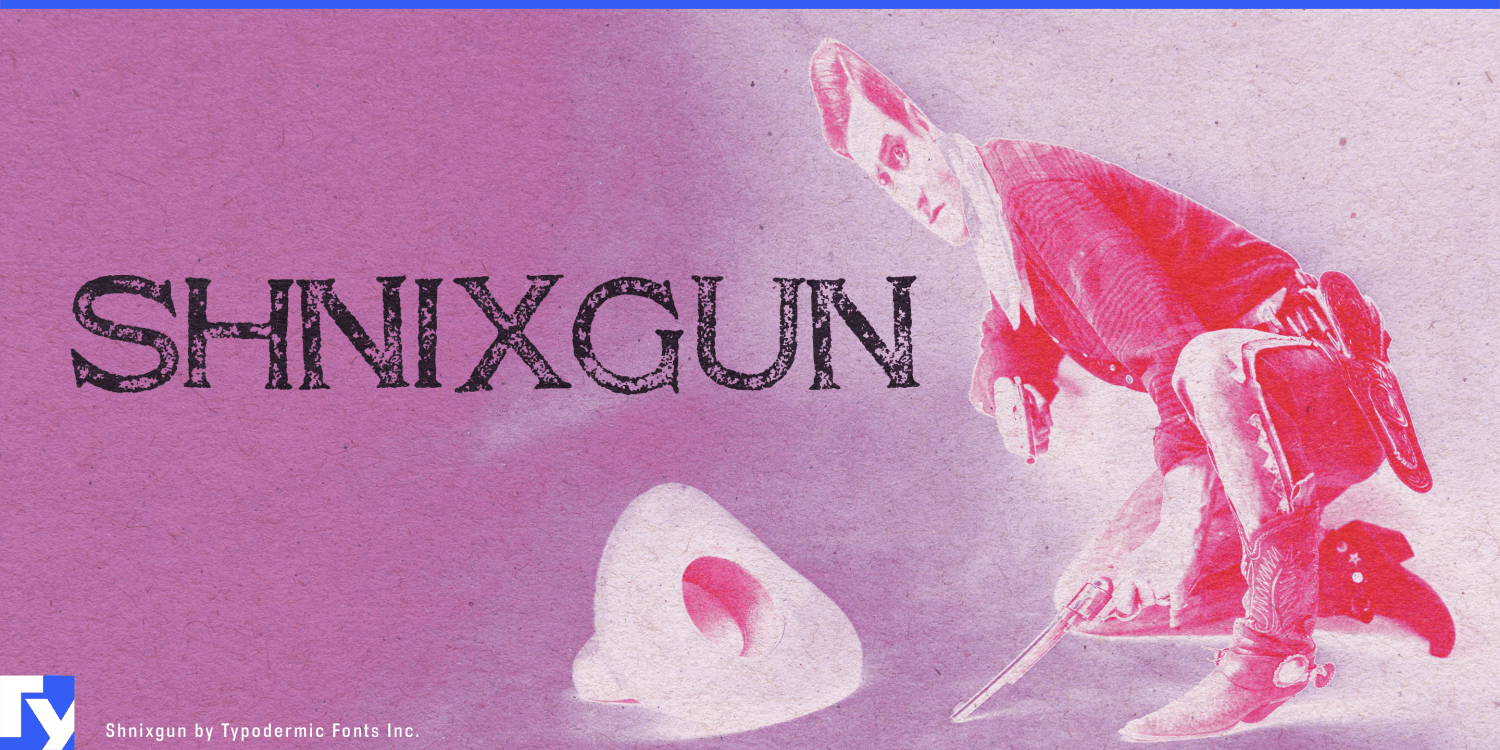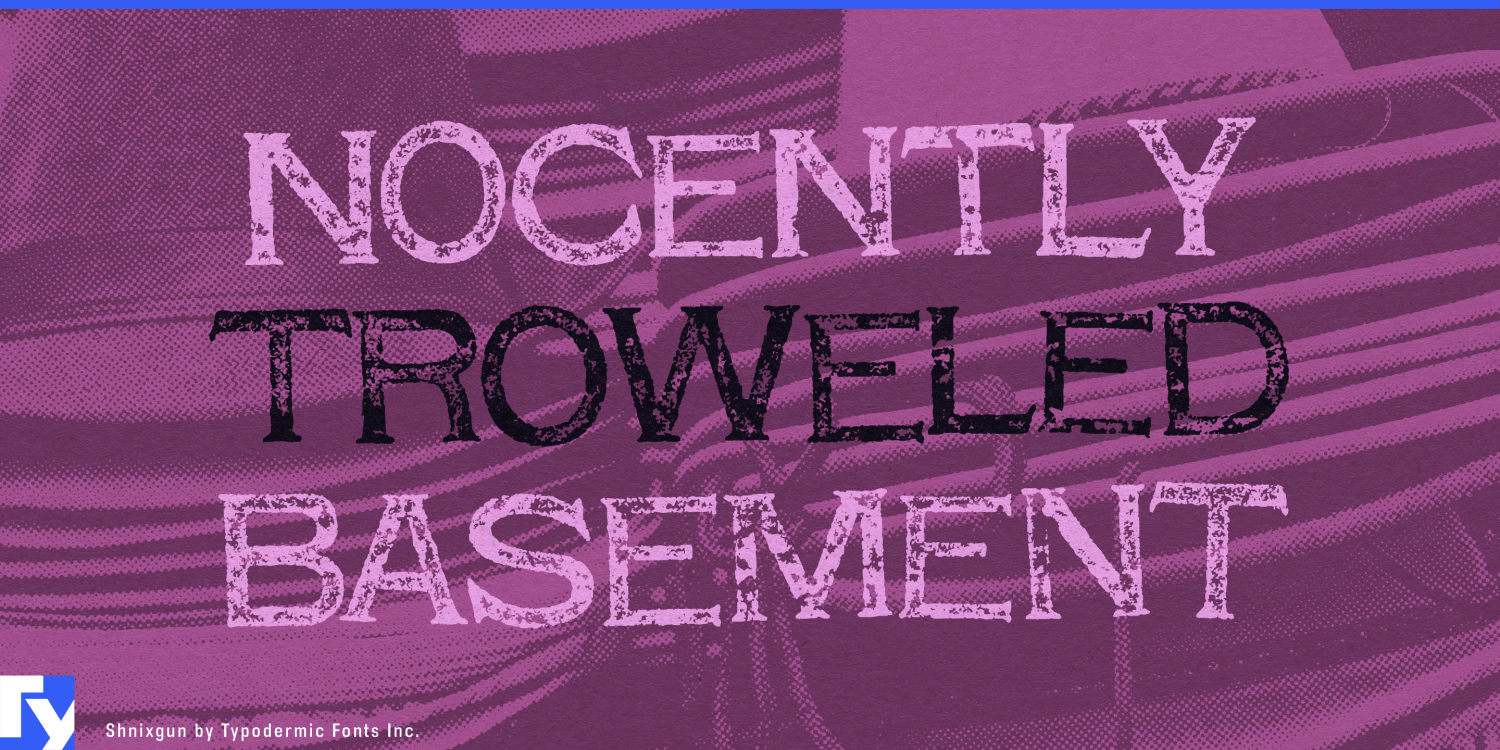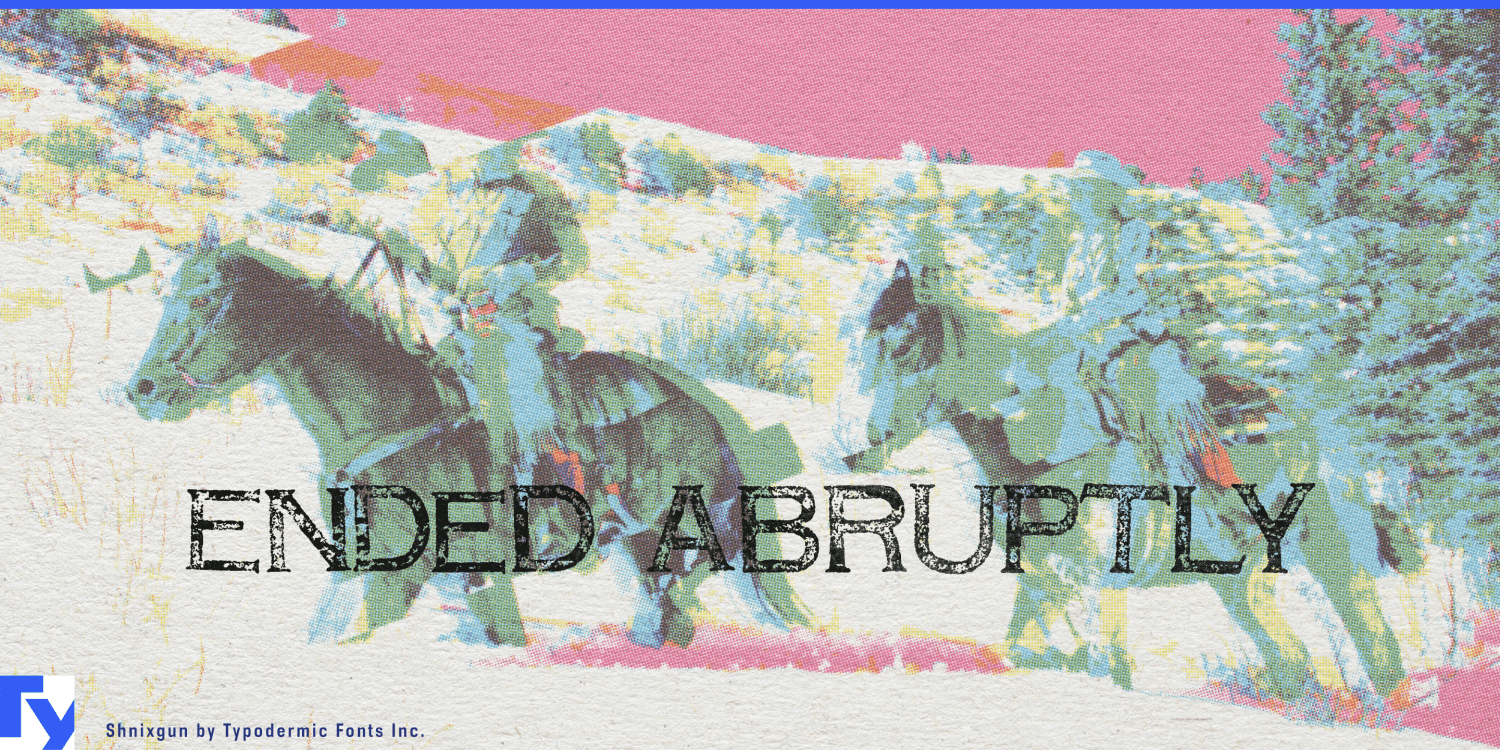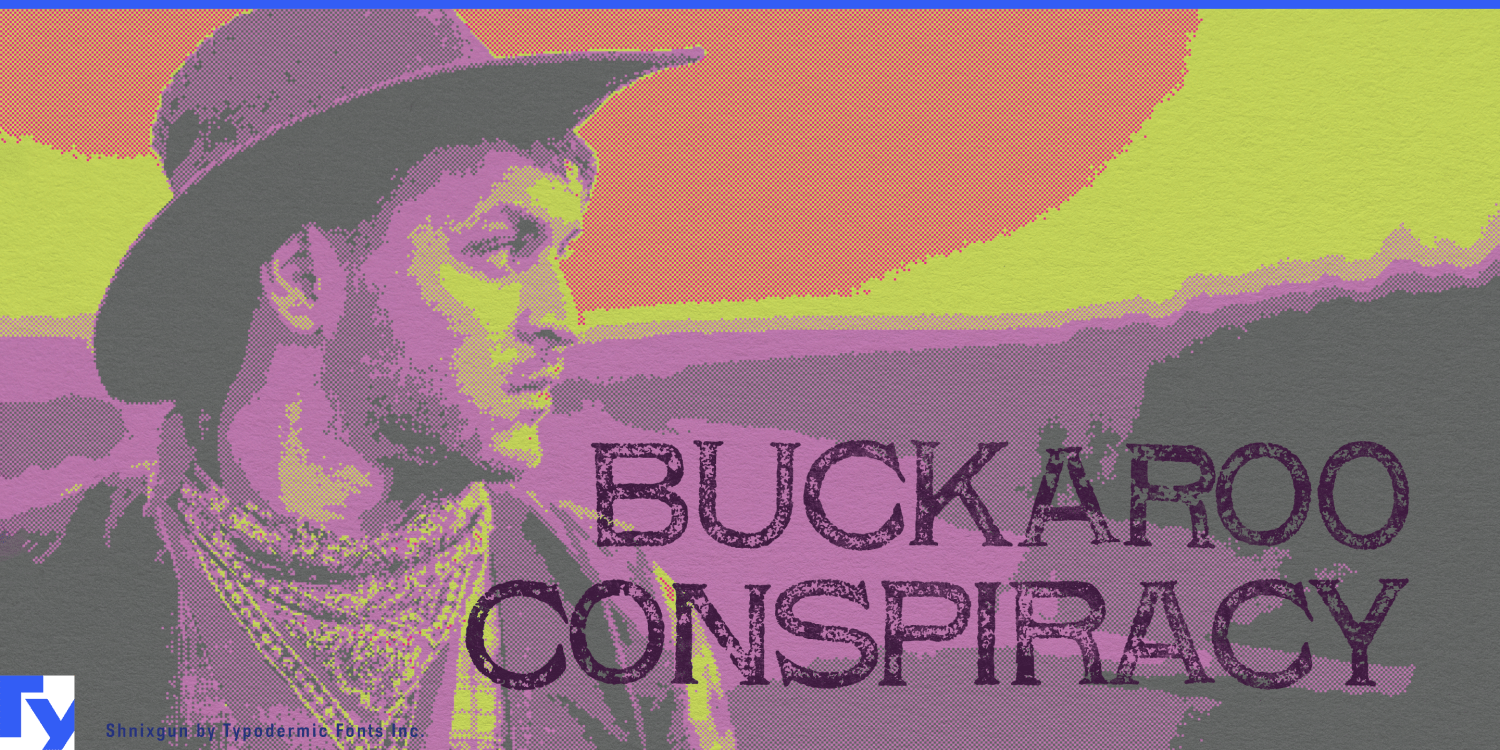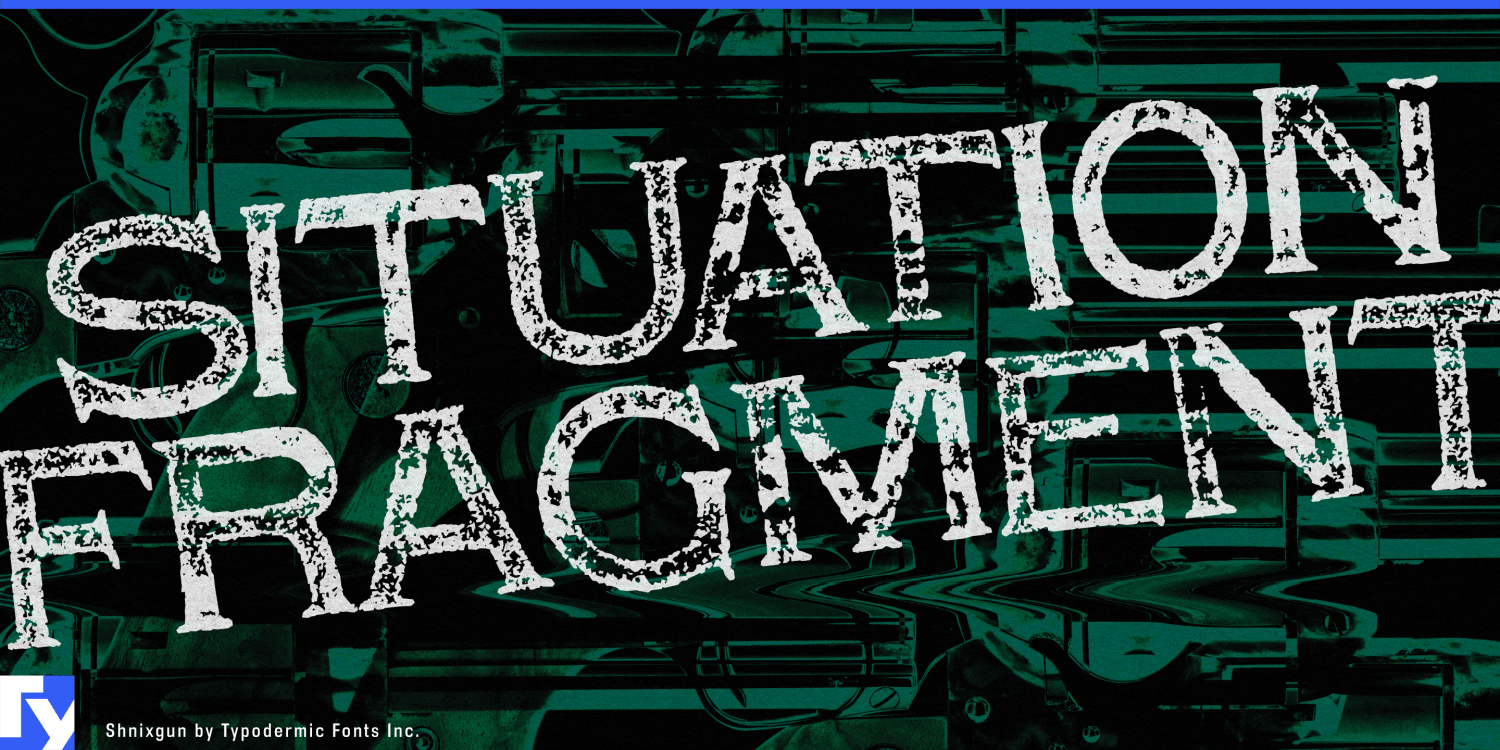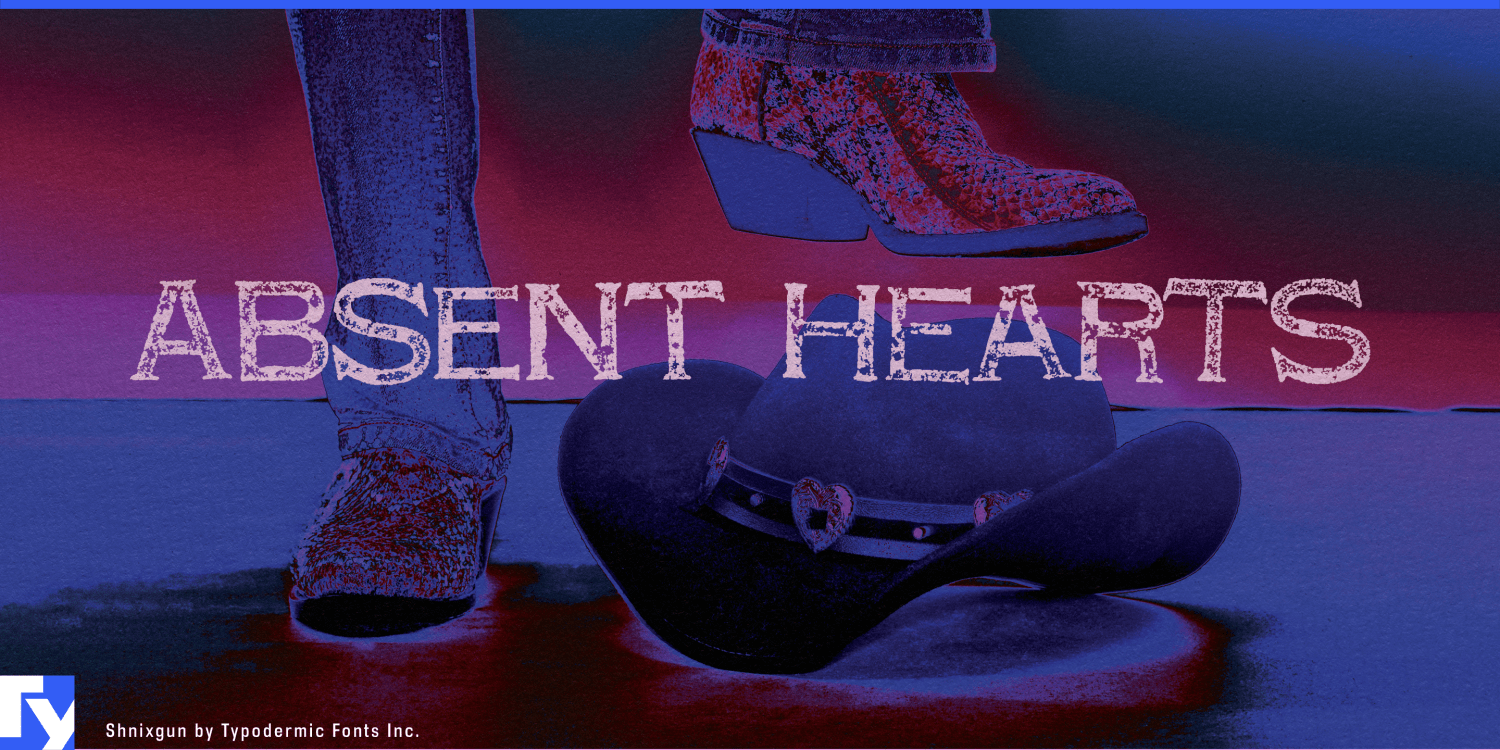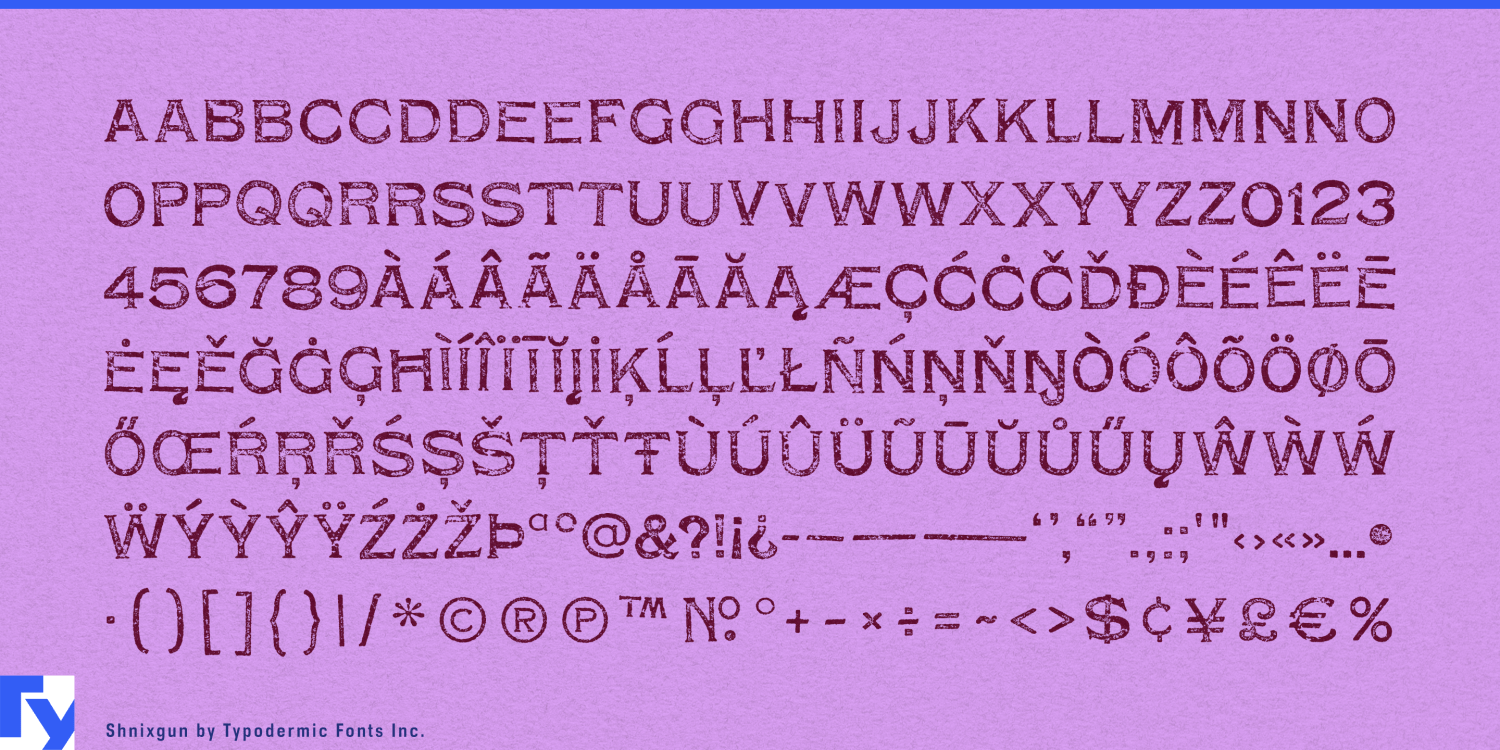
Shnixgun
Buy NowShnixgun is built to look printed rather than digitally distressed. Its condensed all-caps forms carry uneven ink, broken edges, and inconsistent density that suggest imperfect reproduction rather than damage applied to clean type. Character substitutions also help repeated combinations avoid an obviously mechanical pattern.
That makes Shnixgun especially useful when a contemporary design system needs a convincing historical layer. Established manufacturers, engineering companies, rail operators, building-product firms, electrical suppliers, and other long-lived industrial businesses can use it for centennials, anniversary campaigns, heritage collections, archive exhibitions, reconstructed catalogue graphics, factory-history displays, and limited product reissues.
Restoration and restomod businesses can use the same vocabulary for classic vehicle projects, vintage trucks, motorcycles, reproduction parts, and custom workshops. Shnixgun suits build-series names, specification cards, vehicle-display plaques, parts packaging, workshop graphics, and event material without falling into diner-sign nostalgia.
Industrial museums, railway collections, maritime museums, mining heritage sites, and exhibitions about manufacturing or labour history can use Shnixgun for exhibition titles, section headings, large dates, reconstructed advertisements, and period-style labels while a more neutral companion face handles explanatory text.
Production designers can push the idea further. Film, television, and games set in factories, mines, workshops, railway depots, freight yards, or early commercial districts require crate labels, equipment names, factory notices, freight markings, posters, shop cards, and fictional manufacturer graphics. Shnixgun already supplies an irregular printed texture, helping new assets sit more comfortably beside scanned or reconstructed historical material.
Corporate-history films, museum media, and documentaries about transport, infrastructure, manufacturing, engineering, or labour can use it for dates, locations, archival quotations, chapter headings, and reconstructed graphics. Its condensed commercial proportions and uneven ink texture make Shnixgun a ready-made historical printing voice for archives, restoration culture, museums, and industrial period environments.